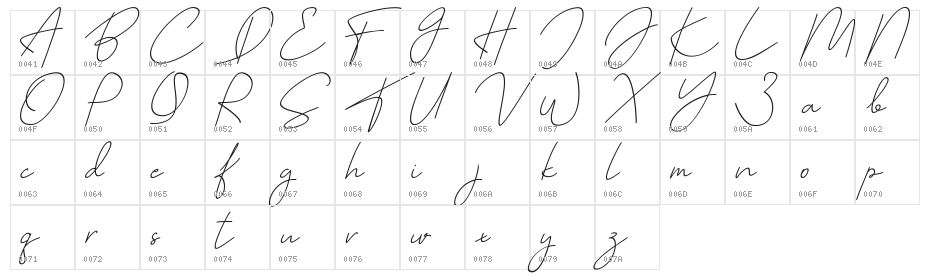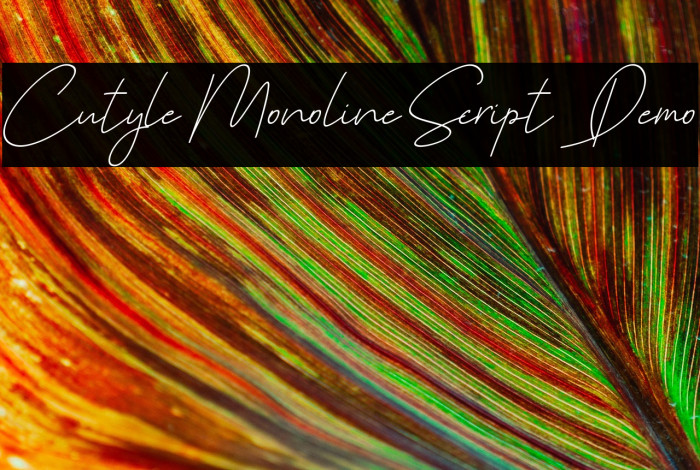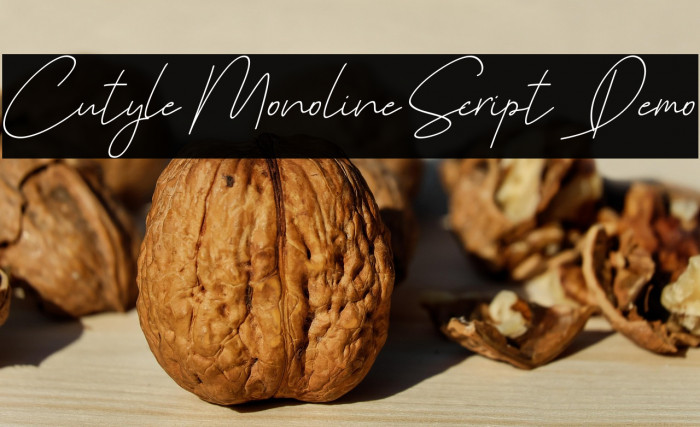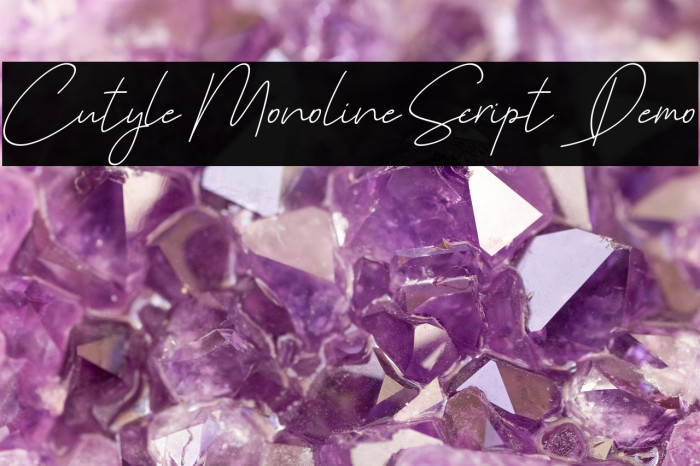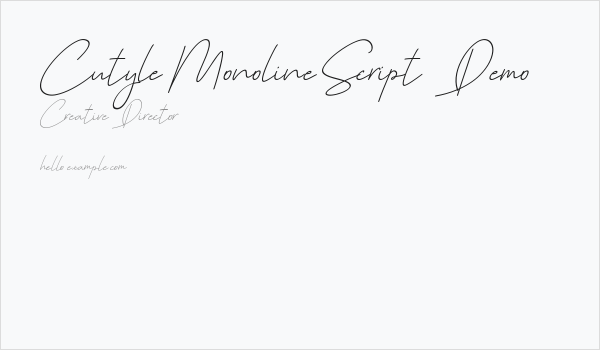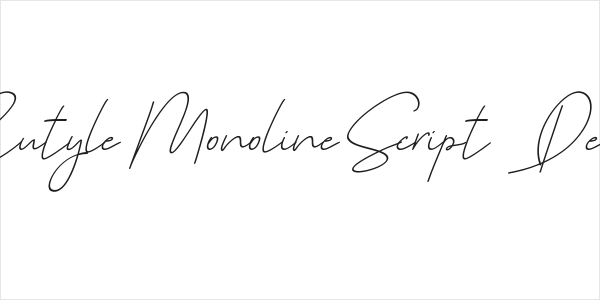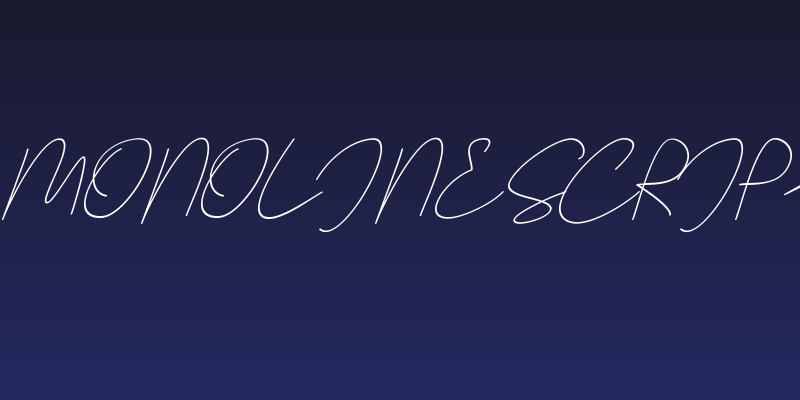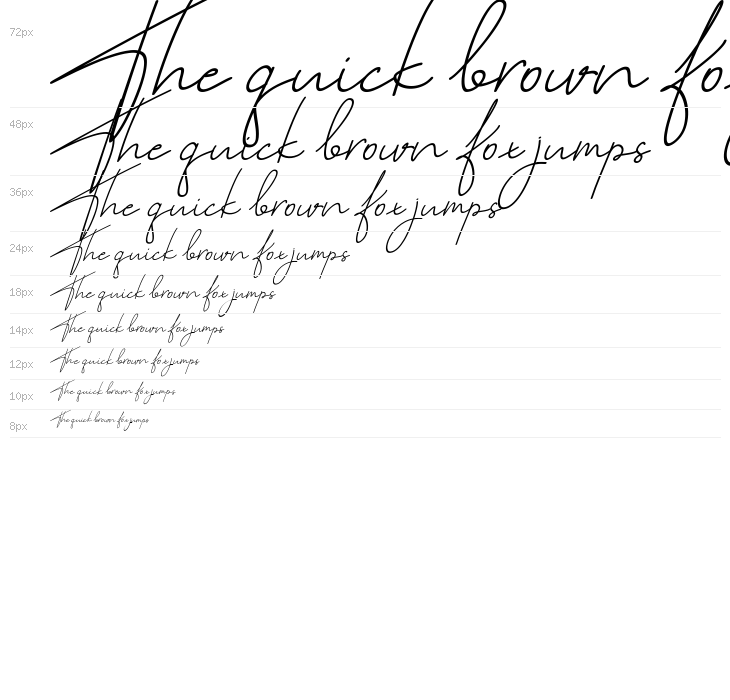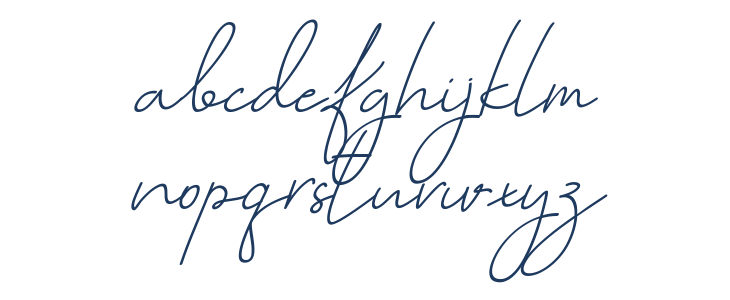
Cutyle Monoline Script [Demo] Font
Cutyle Monoline Script [Demo] Description
This elegant script font features a monoline design, characterized by its consistent stroke width throughout each letter. The letters flow seamlessly into one another, creating a fluid and graceful appearance. The uppercase letters are slightly more structured, providing a nice contrast to the more freeform lowercase letters. This font exudes a sense of sophistication and charm, making it ideal for projects that require a personal touch. The spacing between characters is balanced, ensuring readability while maintaining its artistic flair. Its delicate lines and smooth curves make it perfect for creative and decorative uses.
| Proposed Projects | Ideal for wedding invitations, greeting cards, branding, and elegant logo designs. |